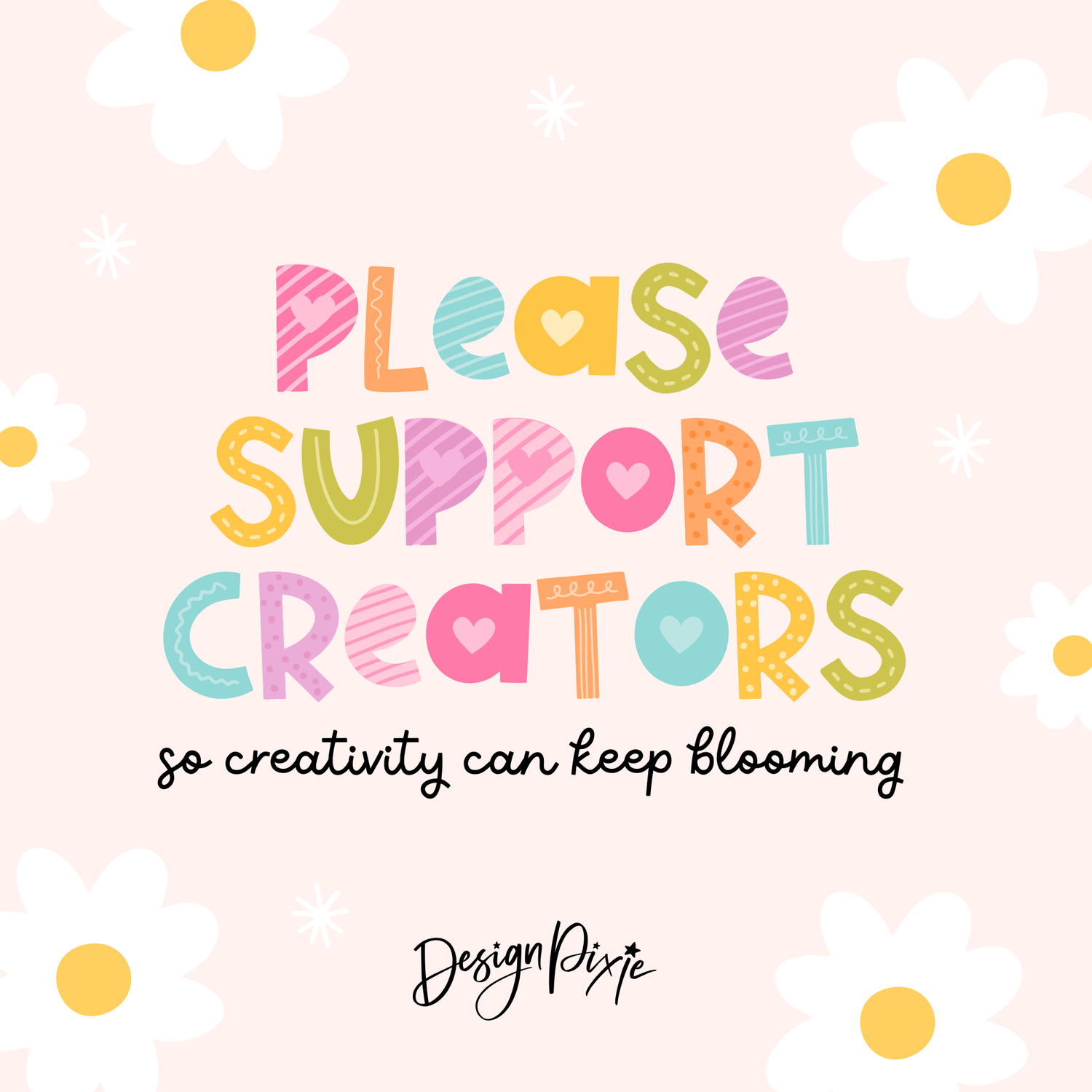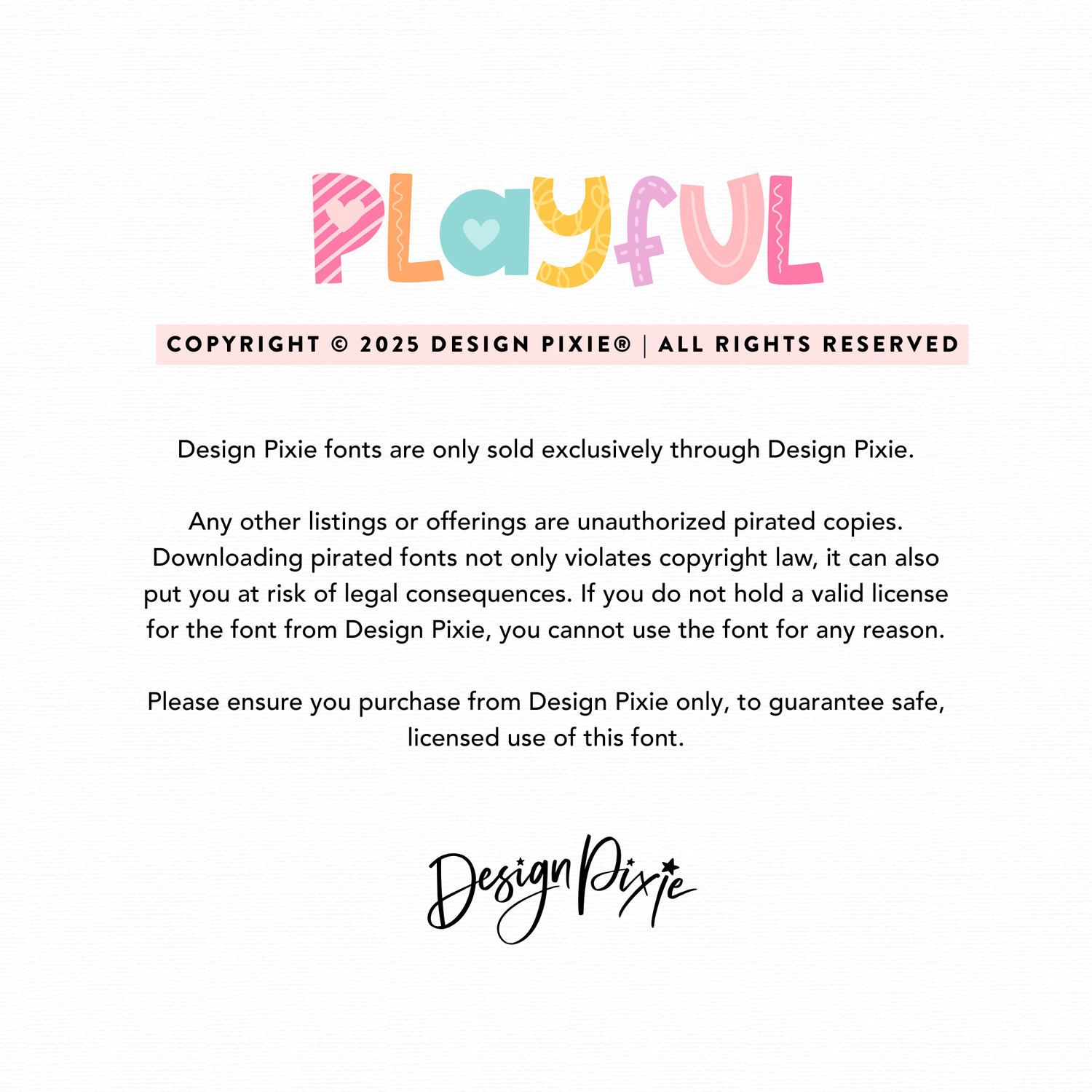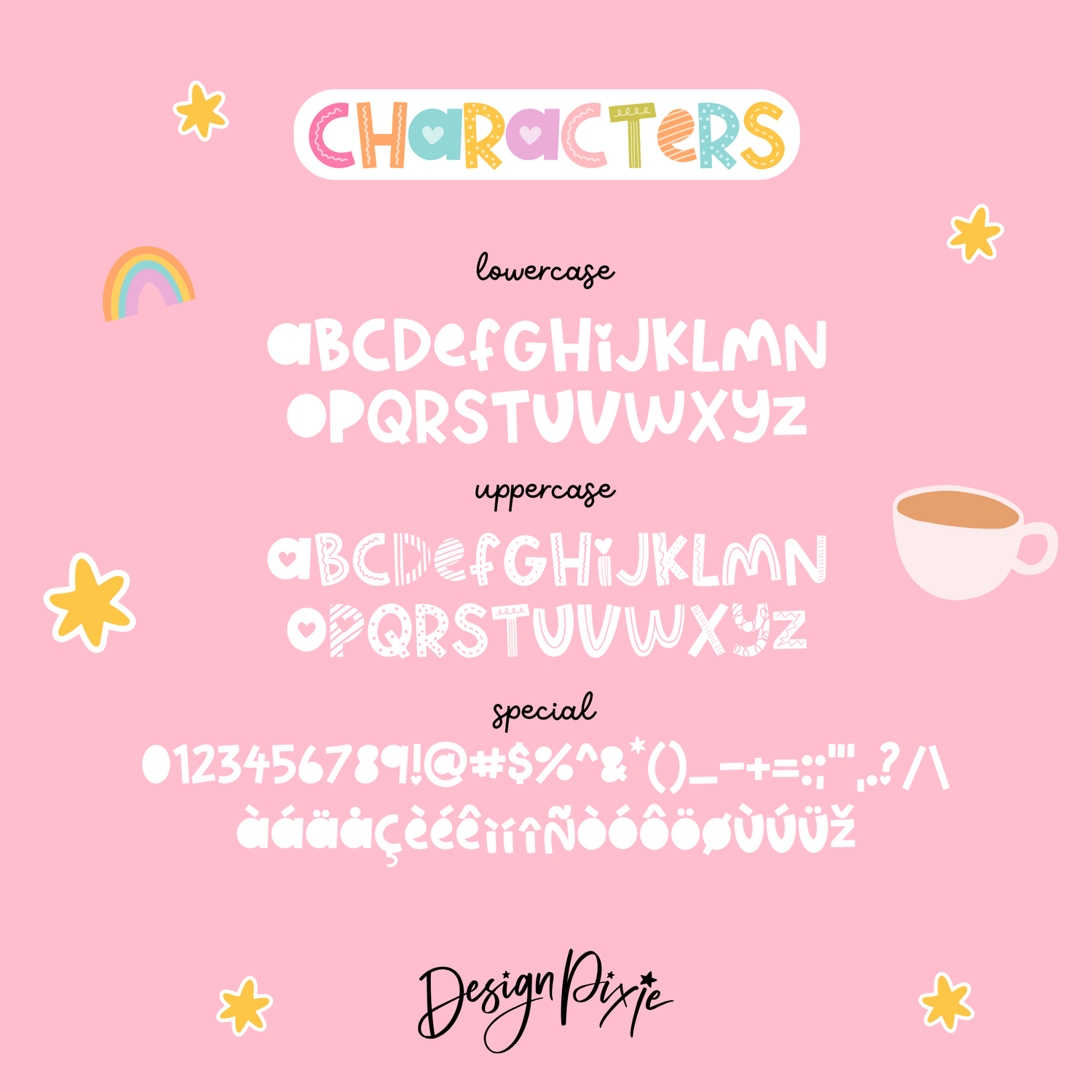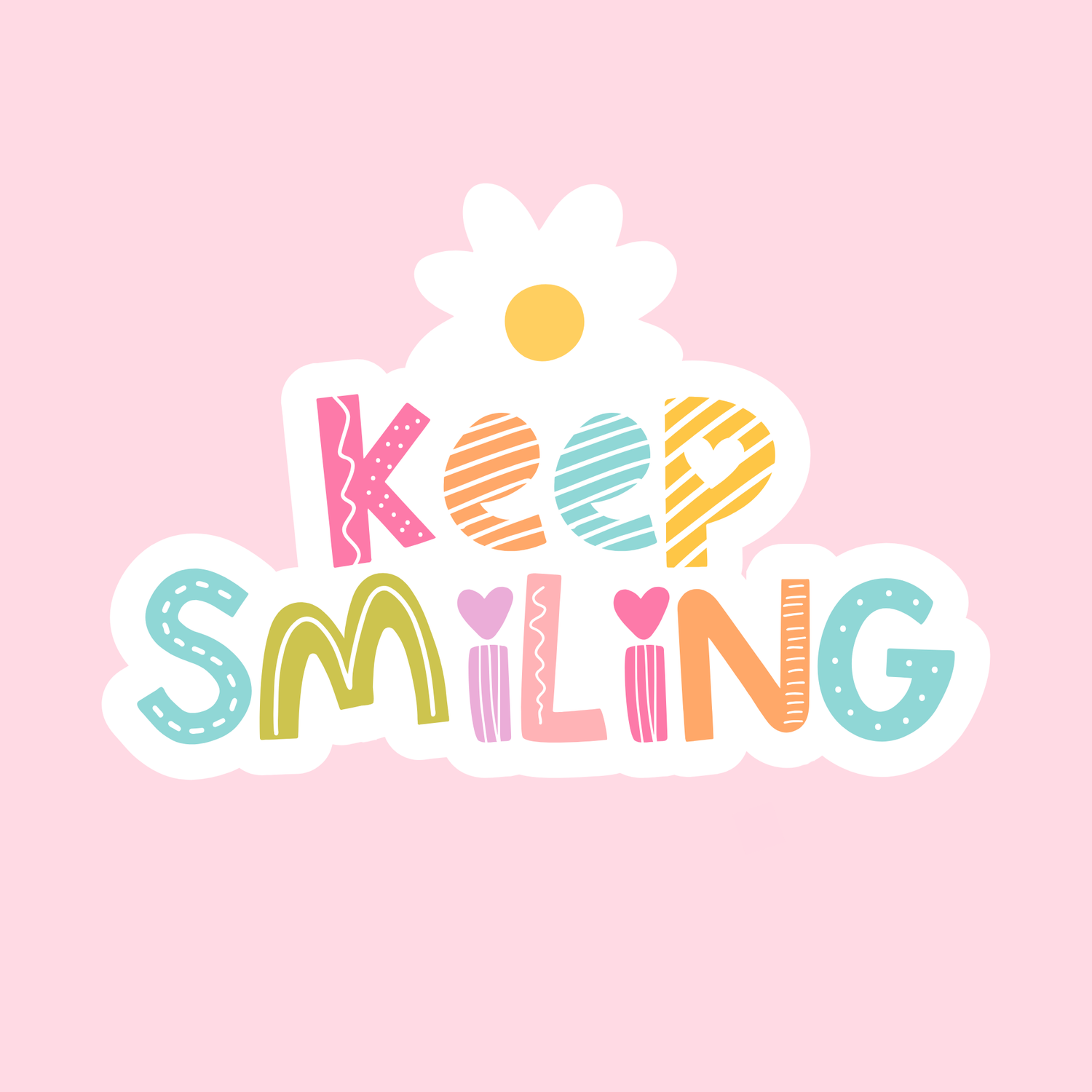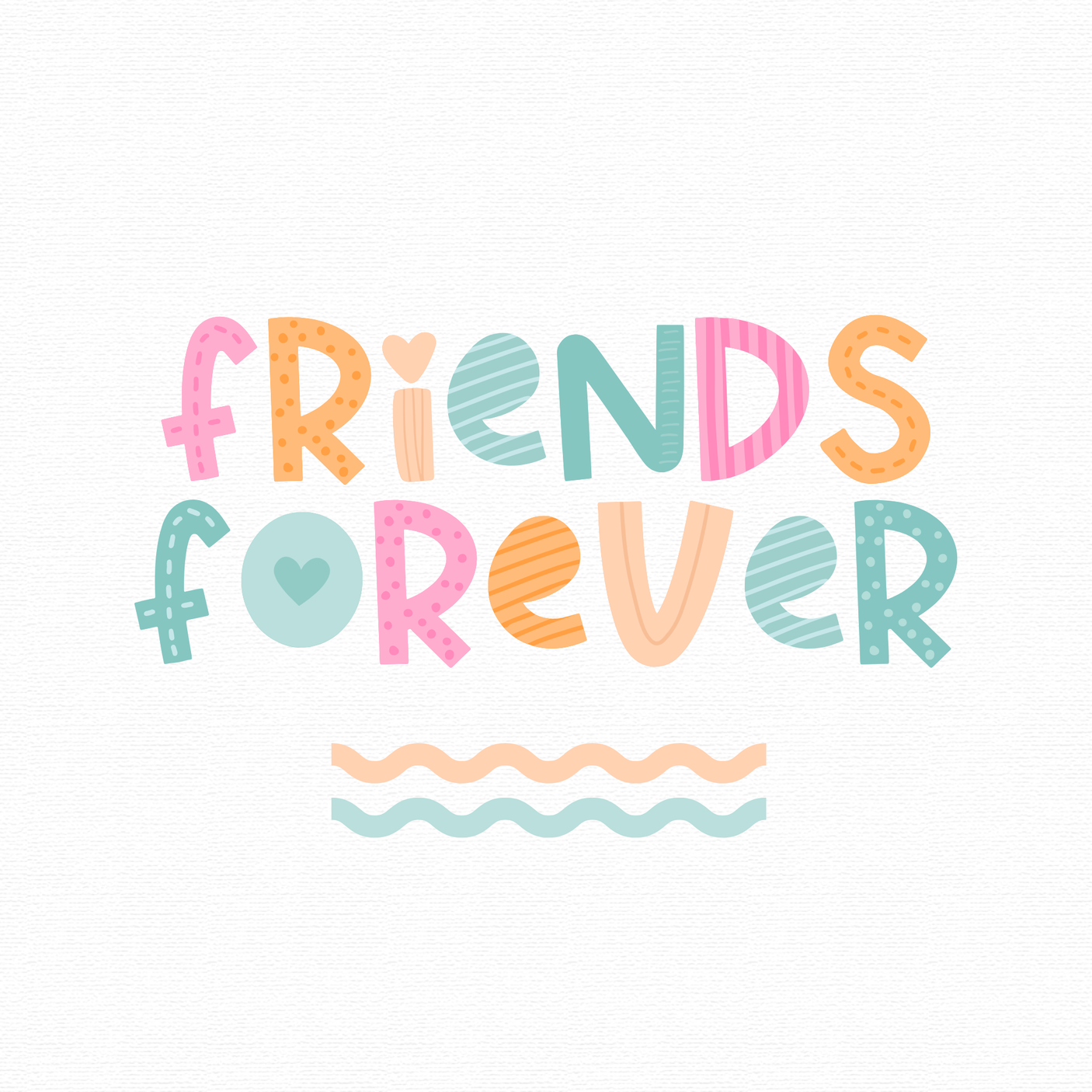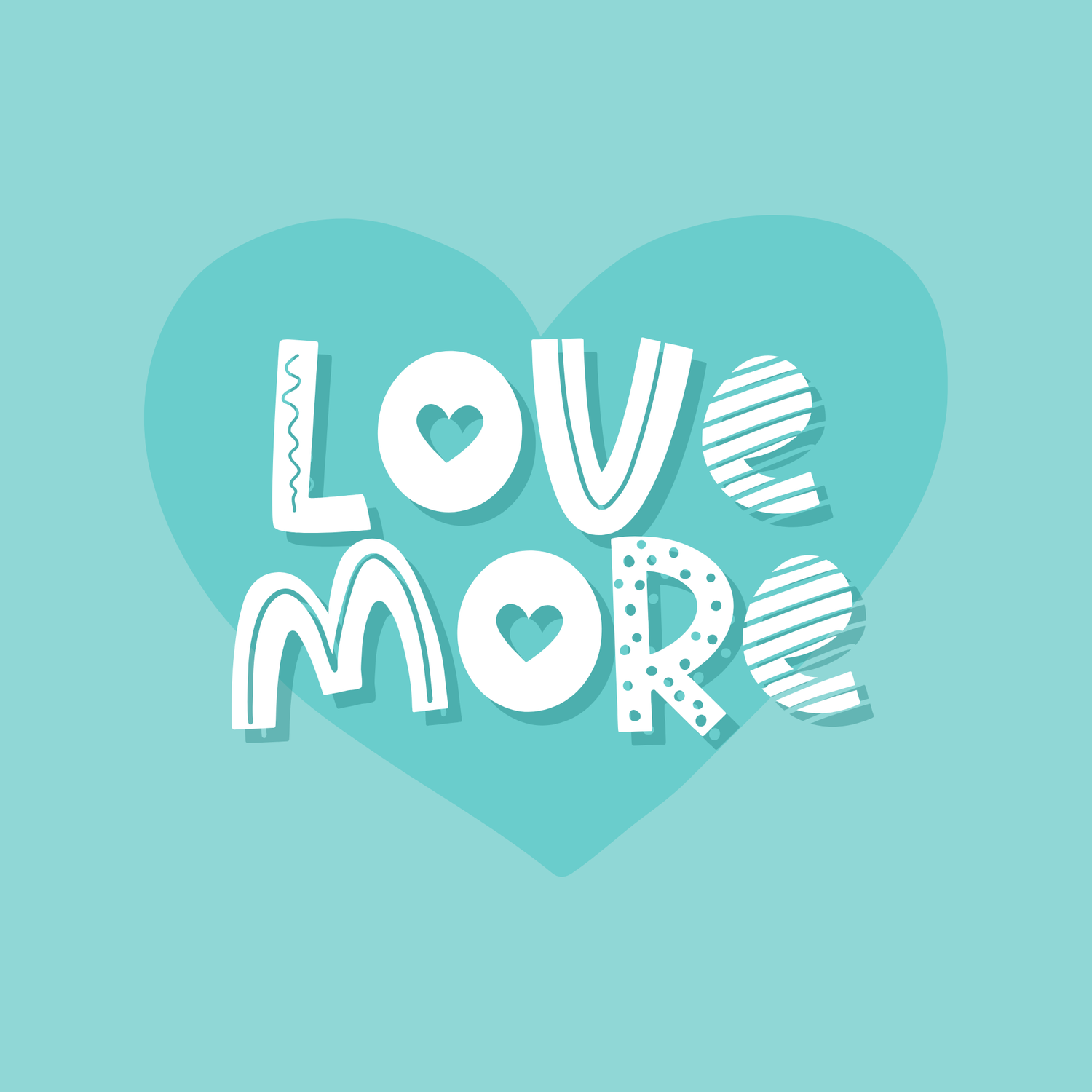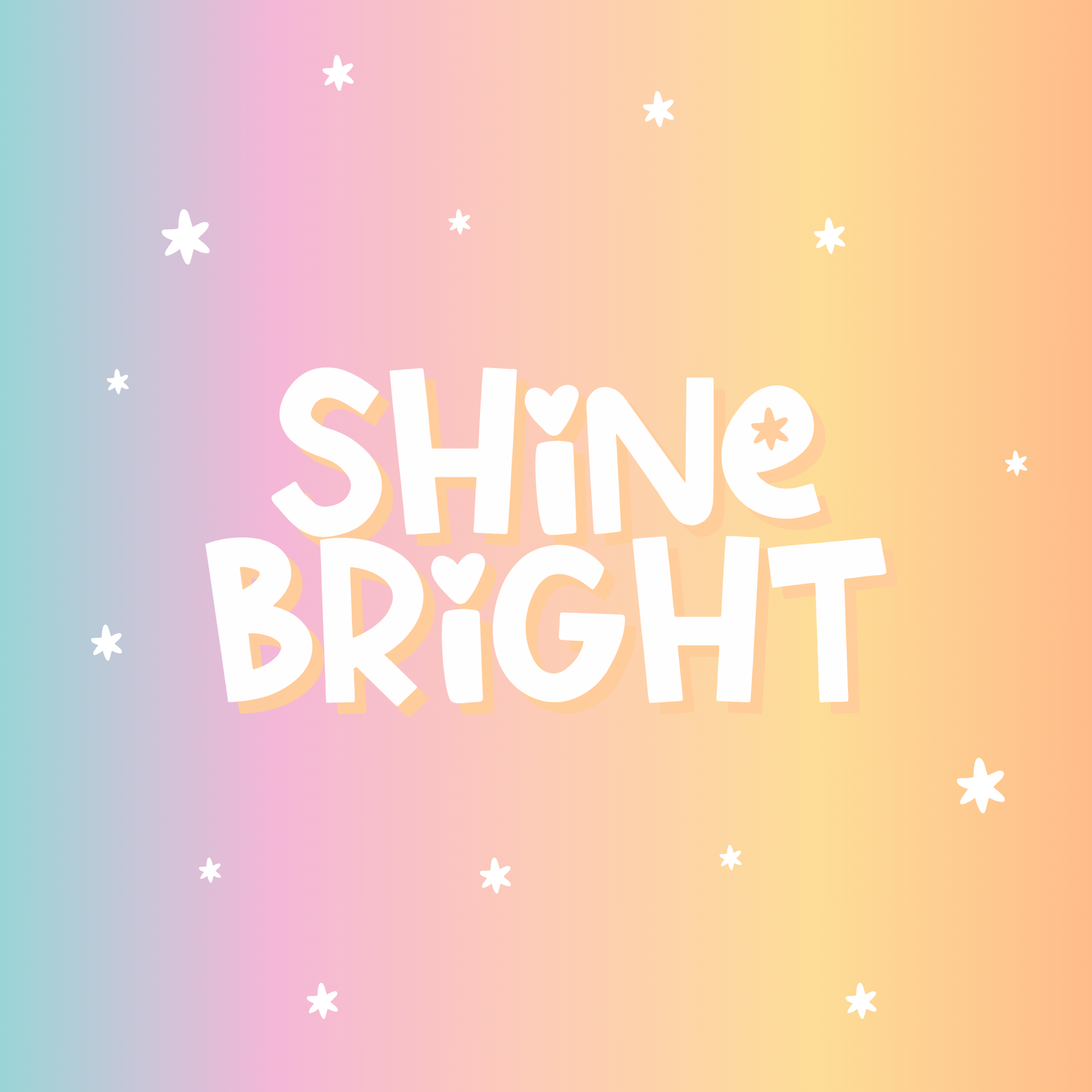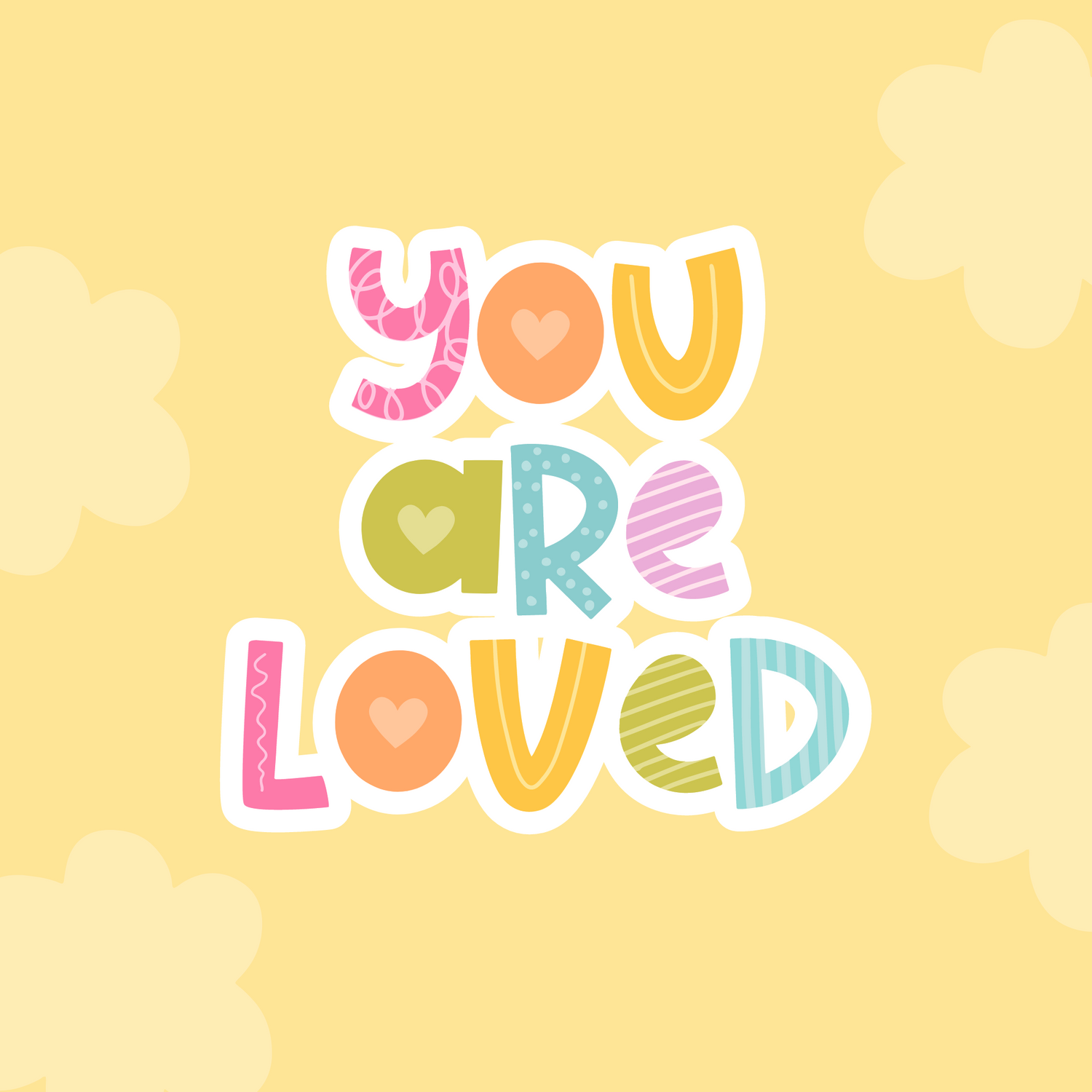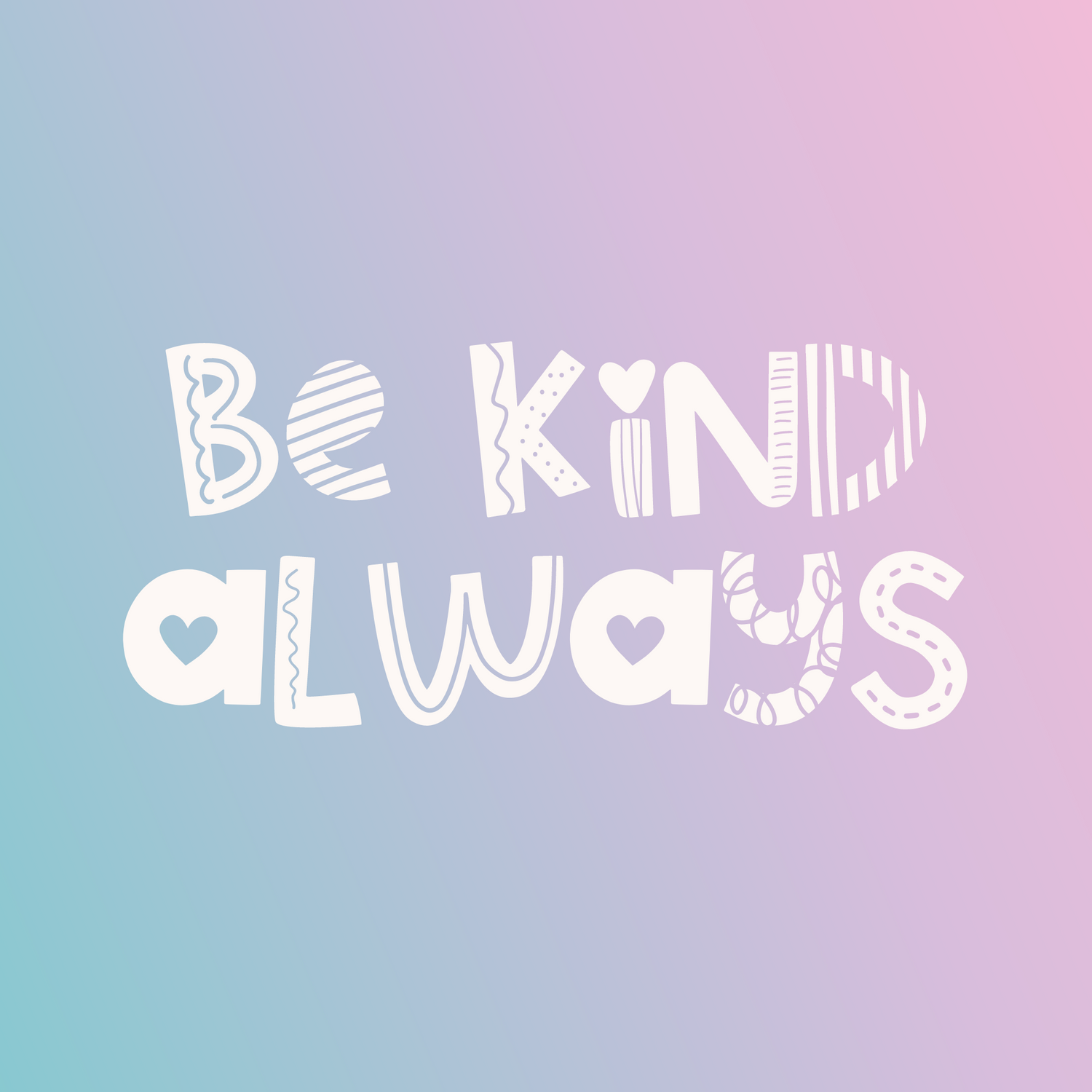
Playful Font
Bring your designs to life with Playful font, a cheerful handwritten display typeface designed to add personality, charm and a touch of fun to every project. With its creative patterns and decorative style, this cute font is perfect for school labels, kids name labels, classroom resources, teacher designs, Cricut projects, stickers, crafts, small business branding, packaging, logos, invitations, and more.
Whether you’re creating personalized school supplies, designing products, making handmade goods, or building a brand with a fun and approachable feel, Playful font makes every design feel more memorable.
Perfect for:
• School labels and personalized name stickers
• Teacher resources and classroom decor
• Kids product branding
• Cricut & Silhouette craft projects
• Sticker designs and vinyl projects
• Small business packaging and product labels
• Logos and brand identities
• Birthday invitations and party decorations
• Sublimation designs and more!
Playful is a versatile font for makers, teachers, small business owners, crafters, and designers who want a font that feels happy, creative, and full of personality.
Create designs that stand out with a font that’s made for fun.
How To Use
Start by typing out your word in the lowercase. Then add a new layer of text on top in the uppercase to add the patterns on top. Use a rainbow color palette while typing to make the font stand out. I recommend using pale colors for the lowercase text that will sit underneath, then brighter colors for the uppercase patterned characters that will sit on top.
Is Playful font good for school labels?
Yes! Playful is a popular choice for personalised school labels, name stickers, lunchbox labels, stationery, and kids’ supplies because its friendly style is easy to read while adding a fun touch.
What can I use Playful font for?
Playful is perfect for cute designs, teacher resources, branding, packaging, invitations, social media graphics and creative DIY projects.